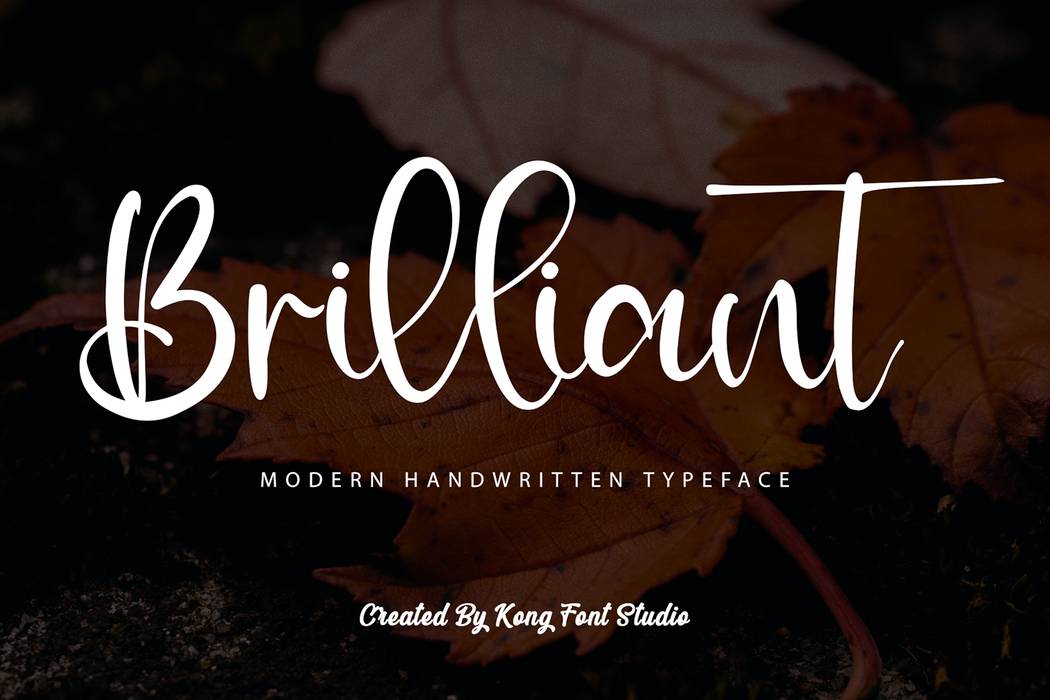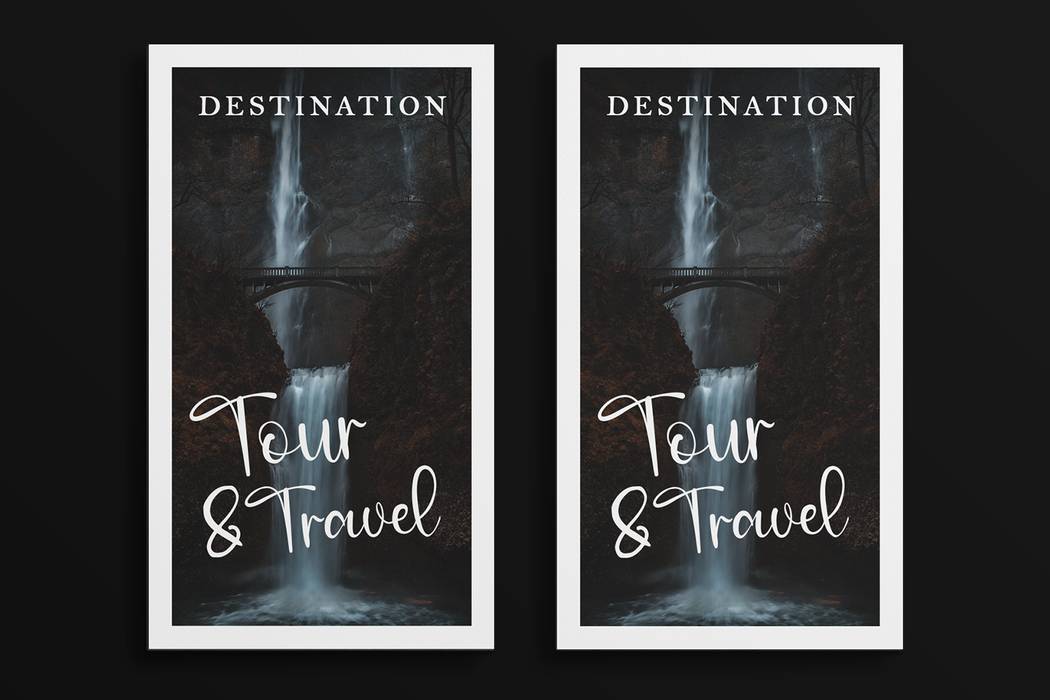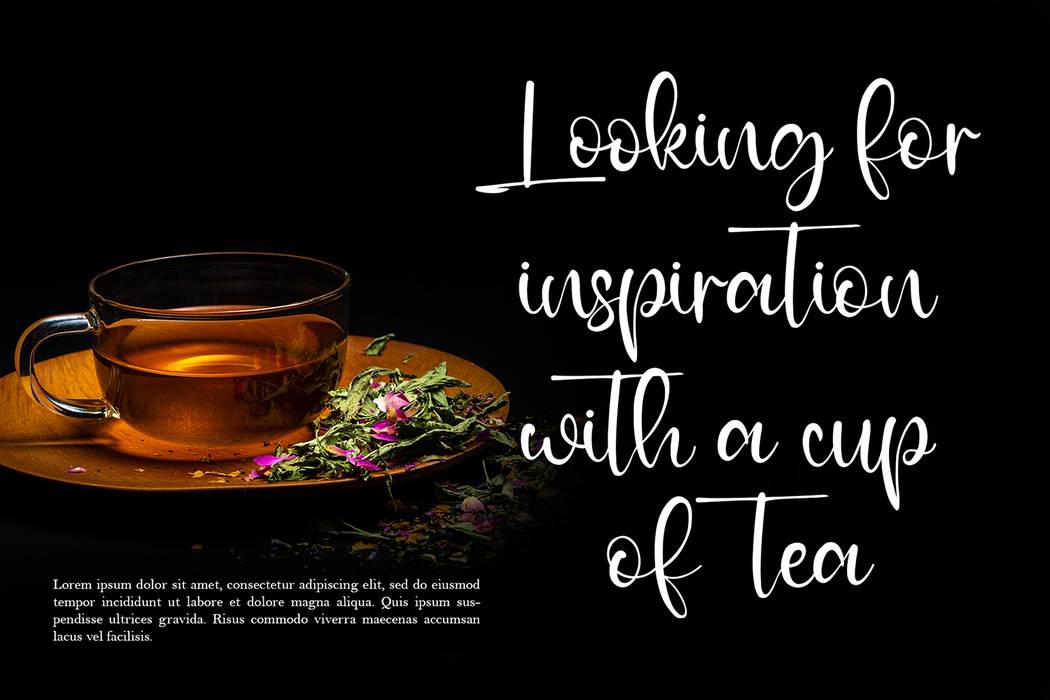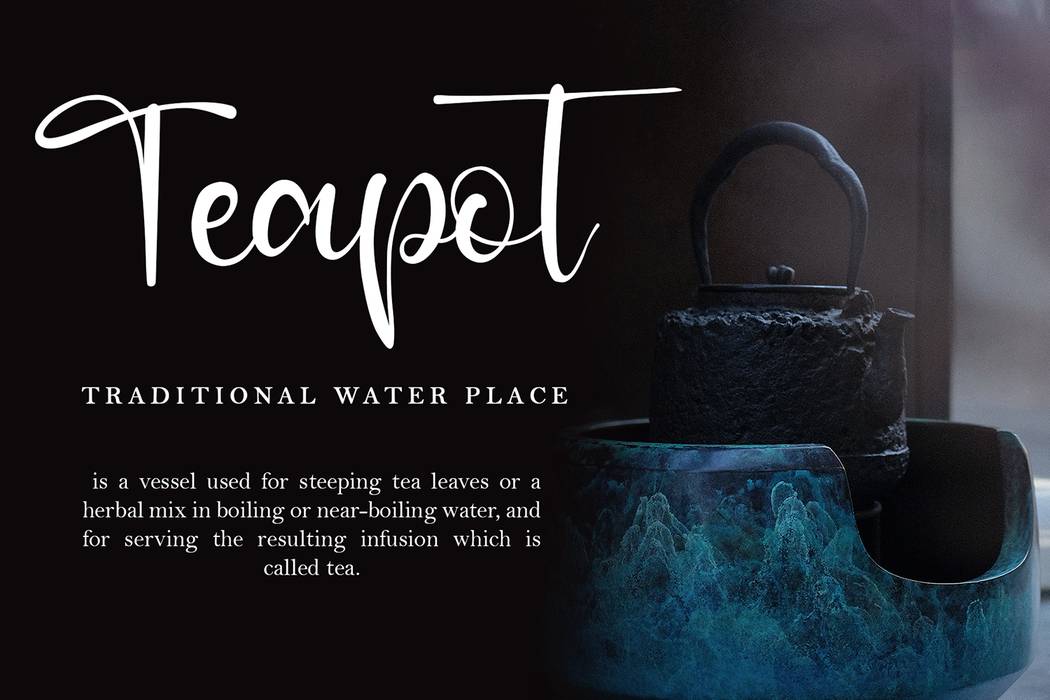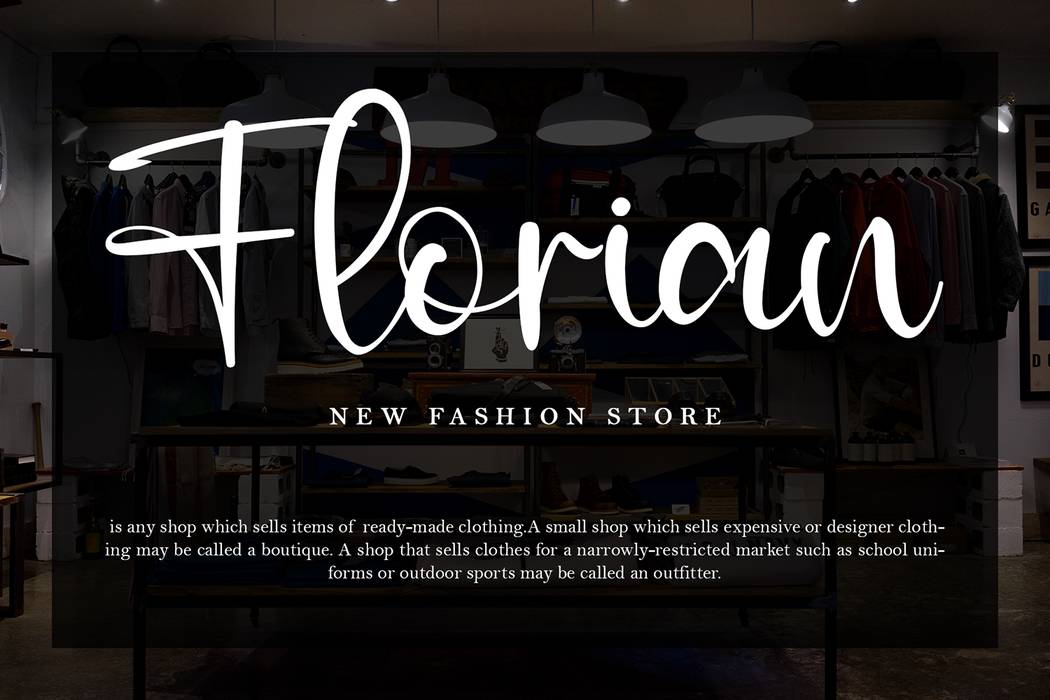
Brilliant Font is an elegant, modern script typeface with slender, flowing lines that create a refined and graceful feel. Its delicate, handwritten style makes it perfect for sophisticated branding, invitations, and fashion-related design, bringing a touch of luxury and personal charm to any project.
Brilliant Font
About Brilliant Font